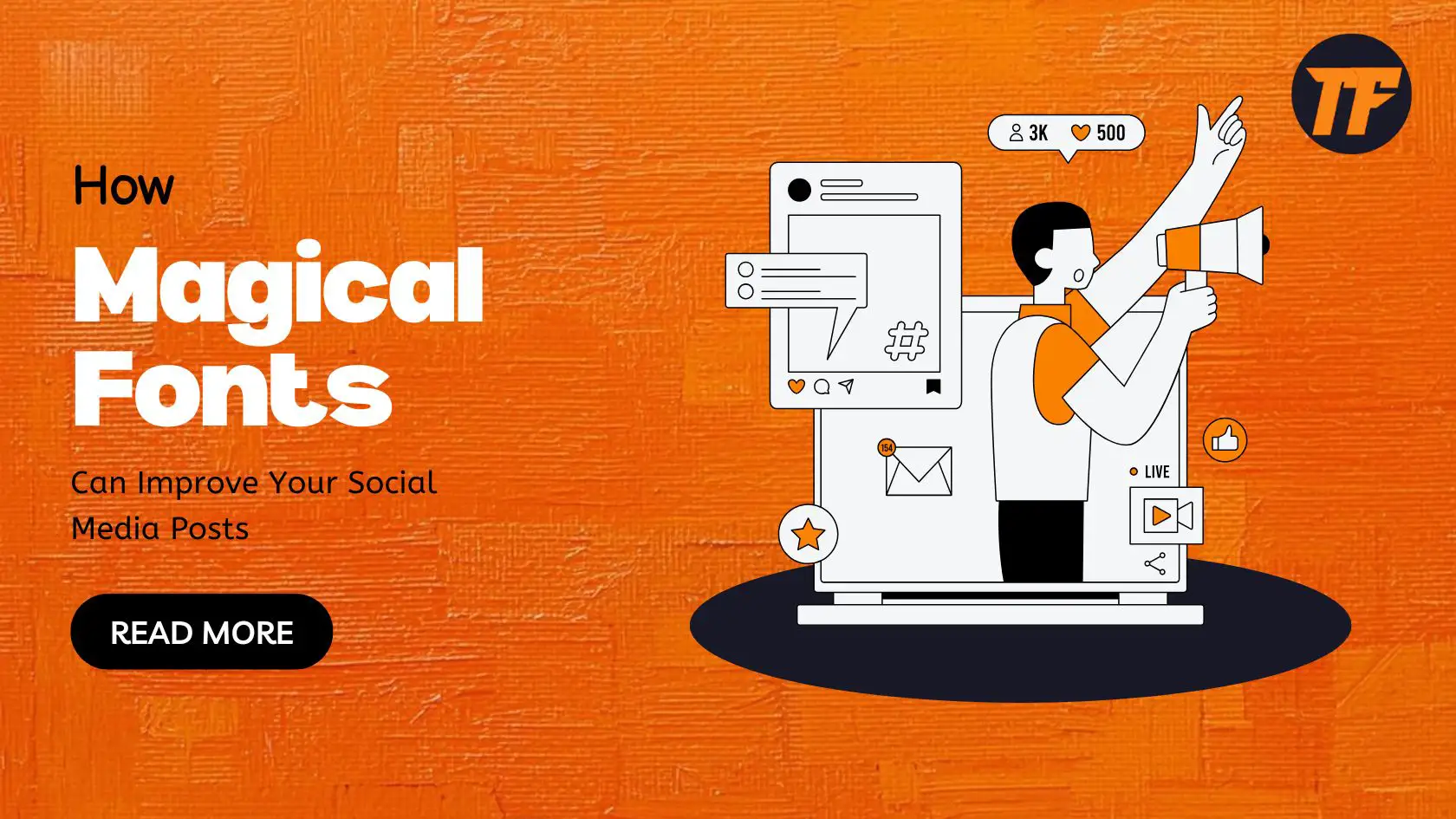
Social media has become part of our lives in today’s society; it has found its place in our day-to-day activities. If you want to be a content creator, a small business, or any random person who wants to stand out in apps like Instagram, Facebook, and TikTok, it is not easy. That was me, too…for the longest time, my posts were not ‘wow’ inducing. Unfortunately, the engaging content did not help bring engagement to the next level. When I decided it was time to turn my story into a novel, it was a good thing to learn that amazing things can happen with the help of magical fonts.
In this article, I will explain what fonts can do to your posts and how I use them, and give you some recommendations on what fonts to use.
Let me start with why fonts are so important to understanding announcements. People go on social media to let their creativity run wild, to express themselves, and sometimes, even to play. With your average audience scrolling through posts daily, you may need a few seconds to engage them to make it work. Fonts are not only types to deliver the text; they are feelings, emotions, the character of the company, and an impression.
For example:
The specific font choice you make enables your message to connect quickly with viewers during first glance at your content.
I used to doubt how fonts could effectively communicate messages. One year ago every social media post in my feed had standard qualities. The entire design of my Instagram used standard default typefaces which included captions and story highlights along with graphics. The informative messages failed to create any remarkable impression.
The changes I made when I attempted magical fonts produced these results:
One of my favorite posts was a motivational quote. Initially, I used a simple system font, and the post received around 50 likes. A week later, I re-uploaded the exact quote but styled it with Great Vibes, an elegant script font. The post exploded with over 200 likes and 30+ comments.
People said things like:
I had a sale post for my small business. Using Montserrat Extra Bold, I highlighted the word “SALE” and paired it with a minimal font for the details. The result? My post had 3x more shares than usual.
For my Instagram stories, I tried a handwritten font called Dancing Script. The playful, casual vibe worked perfectly for my behind-the-scenes content. My story views went from 500 to 800 in just three days.
Here’s a list of magical fonts that I’ve personally tried and recommend for various types of posts:
Use these for lighthearted, fun, or casual content:
For quotes, announcements, or anything that needs a classy touch:
Grab attention instantly with these strong fonts:
Make your posts more personal and unique.
For clean, professional, and aesthetic content:
Each post has its own vibe. However, there are two golden rules that you can never bend when it comes to choosing the type faces – they set the tone of your content. For example:
If you want your message to be noticed you can underline certain words using the most magical fonts available. For instance:
Don’t overdo it. Stick to two fonts per post—one for the headline and another for the body text. For example:
Play with font colors that contrast with your background. A neon font like Amatic SC on a dark background can grab attention instantly.
Let me show you the difference fonts can make:
Before
After
This change didn’t take hours of work—just the right font choice.
A well-chosen magical font provides unmatched power to enhance your social media profile. Your social media content receives stronger visibility when you select the right font regardless of posting quotes or promotions or posting updates of any kind. Three unique fonts including Great Vibes, Pacifico and Bebas Neue serve as my personal favorites because they have successfully driven audience engagement along with creating better audience connections.
So why not give it a try? Become aware of how these specific fonts impact your posts by experimenting with them on your upcoming social media update. Trust me—it’s worth it.